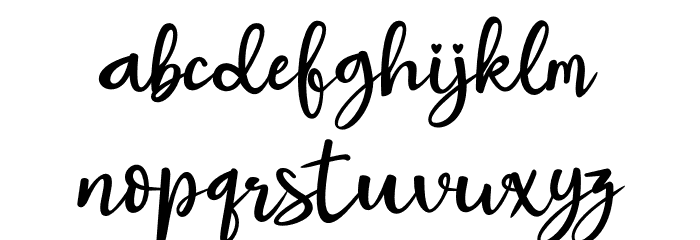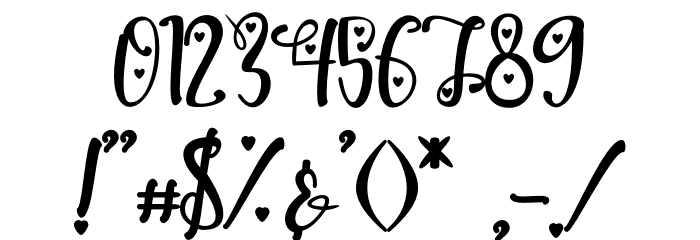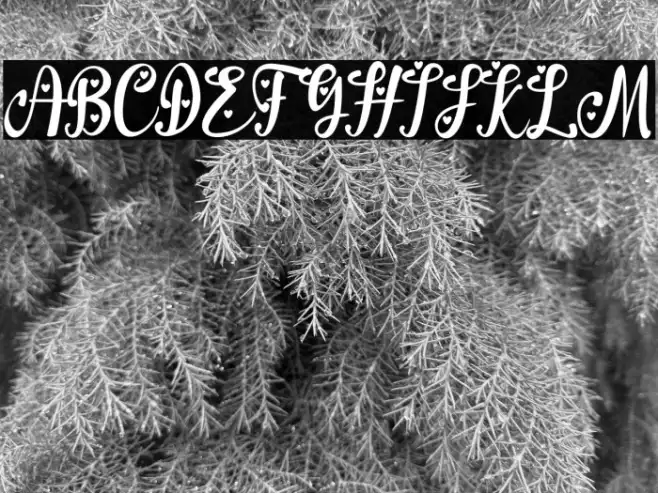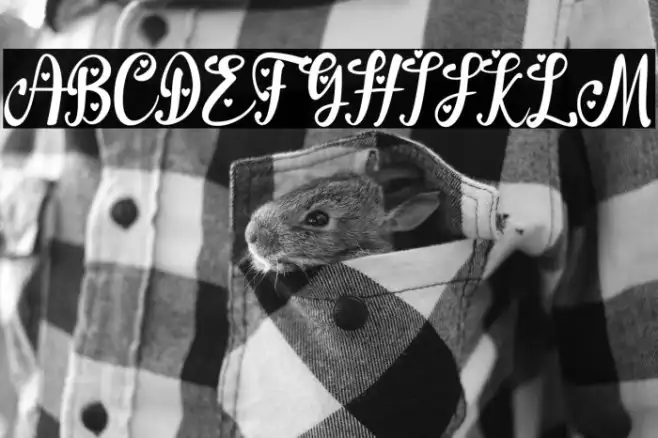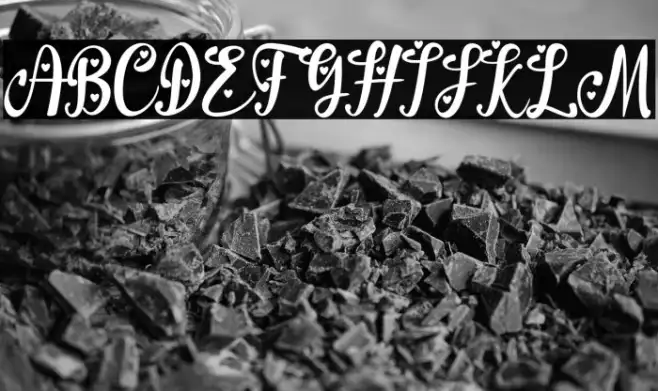
Little Bubbly Font
This font exudes a playful and whimsical charm, characterized by its flowing, cursive style. The letters are adorned with small, decorative loops and swirls, adding a touch of elegance and flair. The uppercase letters are bold and prominent, while the lowercase letters maintain a consistent, smooth flow. Numbers and special characters are designed with the same playful aesthetic, ensuring a cohesive look across all text. The overall appearance is lively and energetic, making it ideal for projects that require a fun and engaging visual appeal.
A playful, cursive font with decorative loops and swirls.
- Font: Little Bubbly
- Proposed Projects: Ideal for greeting cards, invitations, playful branding, and children's book covers.
- Category: Script
- Use Case: Logos, Headlines, Invitations